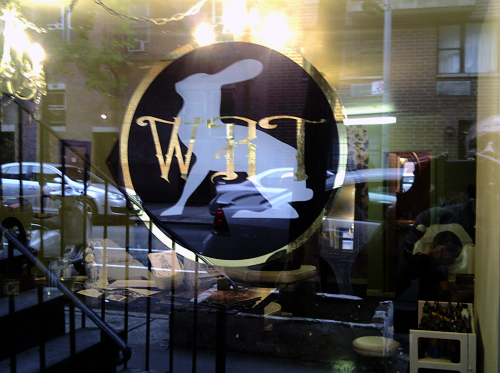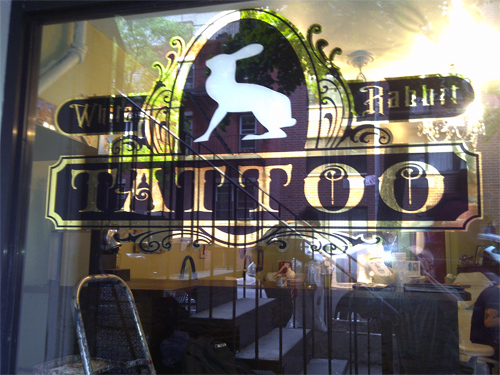
Wanted to share a tattoo shop window I designed & gilded a couple of weeks ago in nyc.
They decided to go with the 3 pence rabbit instead of the trppy one because of thier irish background.
Nice work Bob. What is the font you used for the word TATTOO,
or did you design it. I bet that really catches the eye going by.
Thanks guys! The fonts are Letterhead fonts LHF Antique Shop Regular and LHF Hamilton ornate. I modified the panel. Its a Mike jackson 'americana panel'.